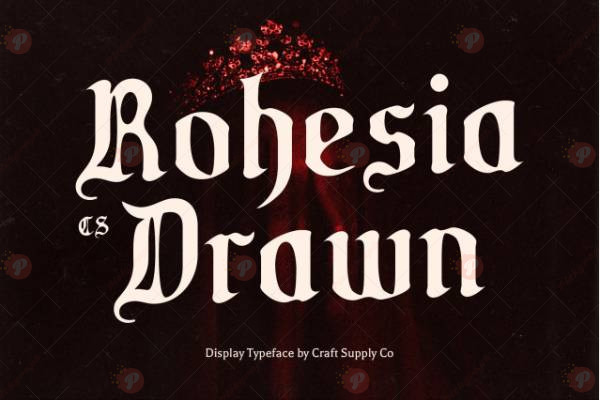
The CS Rohesia Drawn Font Free is a hand-drawn display typeface that combines artistic strokes with a playful handmade feel. Its natural sketch-style design makes it perfect for creative posters, logos, invitations, packaging, book covers, kids’ projects, and social media graphics.
With its unique handcrafted personality, CS Rohesia Drawn Font Free is a great choice for designers who want to add a human touch to their projects. From branding and packaging to digital graphics and invitations, this font ensures your work stands out with a creative charm.
Typeface: Hand-Drawn / Display Typeface
Style: Playful / Handmade / Artistic
Perfect for: Posters, Logos, Invitations, Kids’ Designs, Packaging, Social Media Graphics, Book Covers
Bring warmth and creativity to your next project with the CS Rohesia Drawn Font Free.